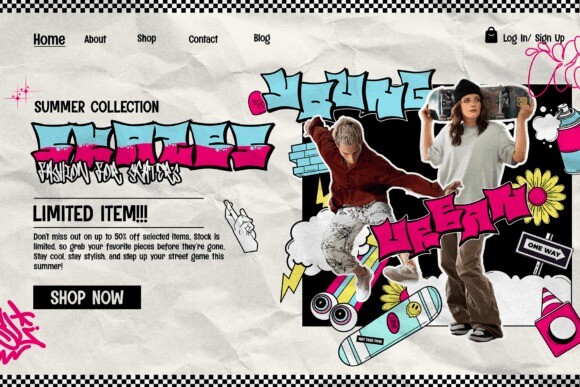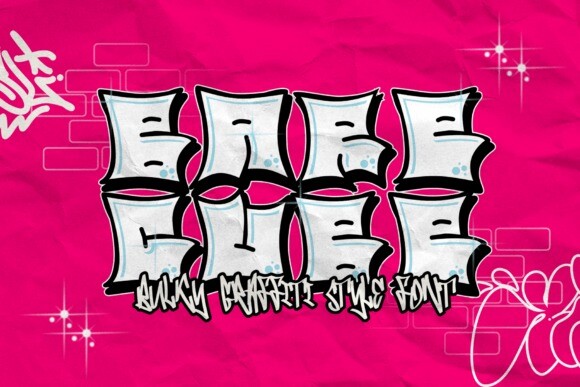
Bare Cube Font
Bare Cube Font, a daring laureate of graffiti-esque charm. With its audacious bulkiness, Bare Cube epitomizes a definitive modern edge in two unique styles: crisp outlined and forceful solid. Indulge in the outlined style for an edgy sharpness that crafts intense visual experiences or venture toward the solid style for a commanding, courageous look.
Bare Cube’s thick, smooth characters are perfect for urban-centric campaigns, street art designs, and stirring headlines, radiating a potent graffiti essence. Offering a hard-hitting and streetwise appearance, this stand-out font flawlessly amplifies your designs, enriching posters, branding, and every creative endeavor that craves a daringly bold and contemporary touch.